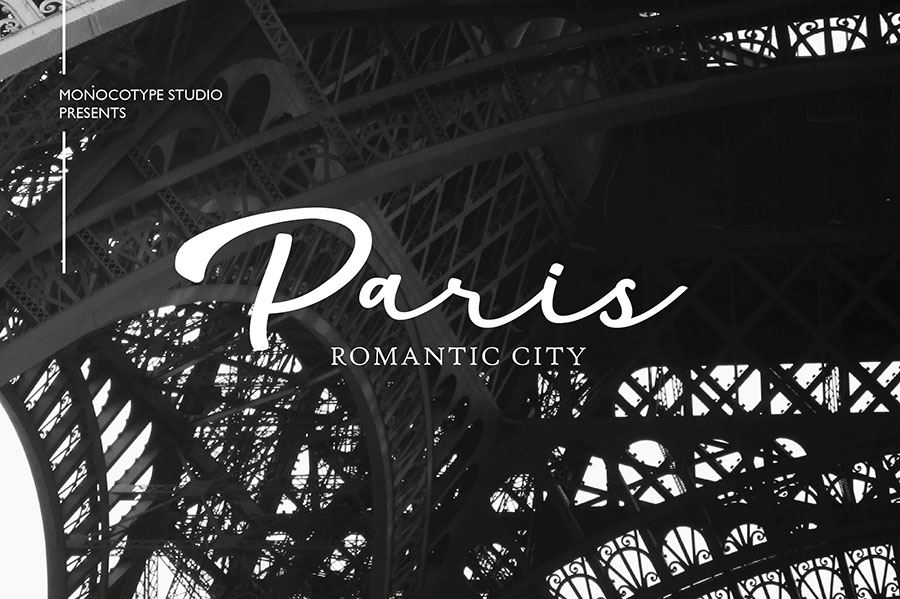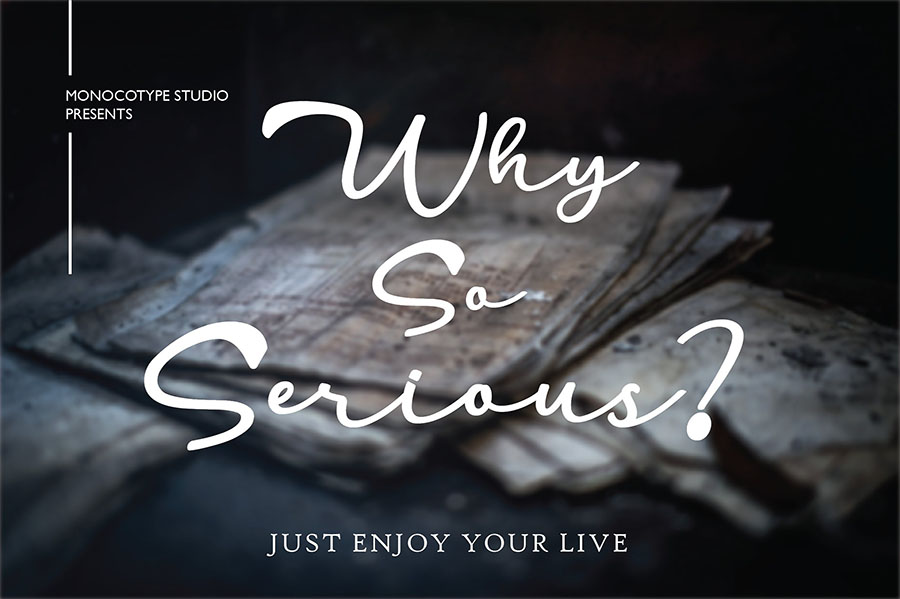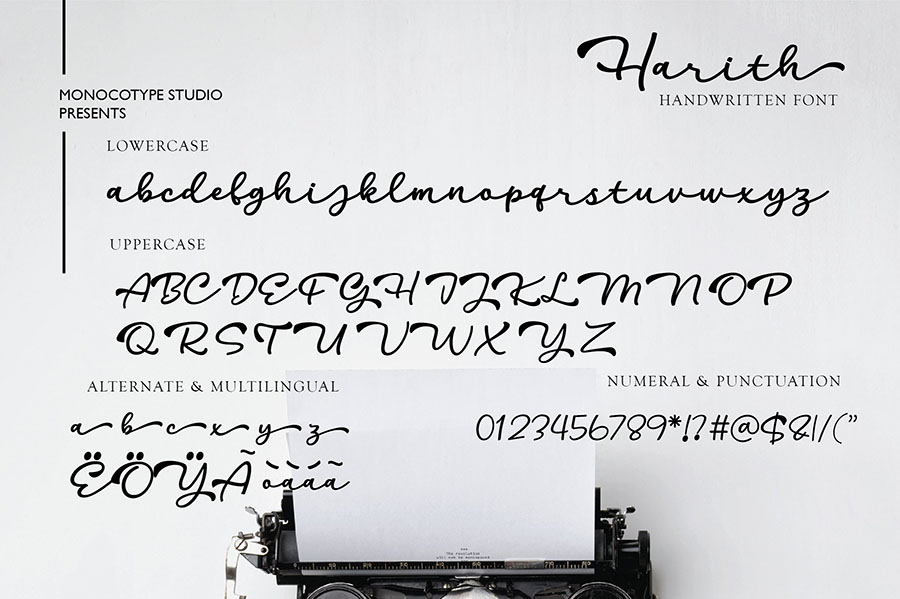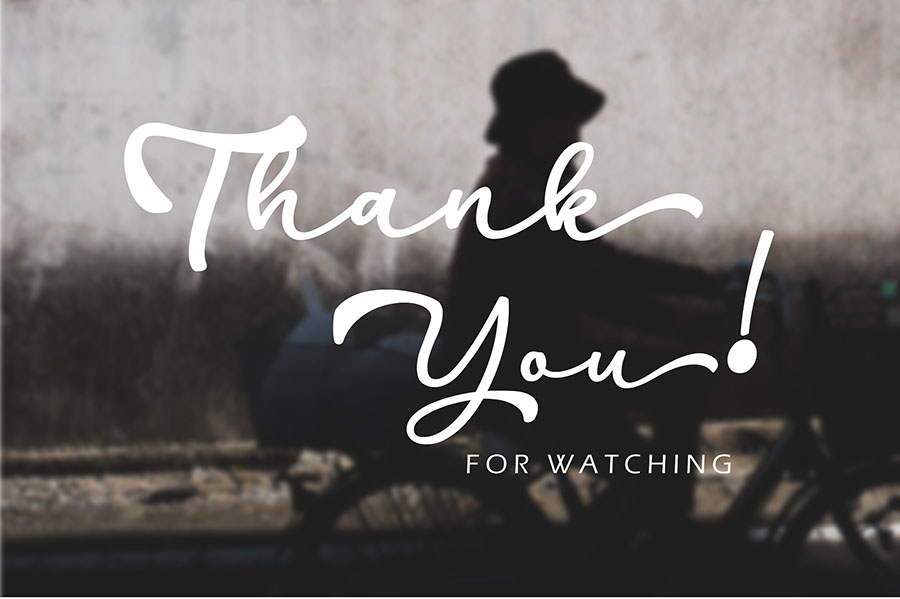
Harith Script Free Demo
Harith Script Free Demo is a script font that has swash at the end of letters. Hence, the font appear exotic and filled with flowing impression. As you can see, the font works great for many different kind of design purposes: lettering and logotype, labels, t-shirts, product packaging, invitations, advertising and any key text in design.